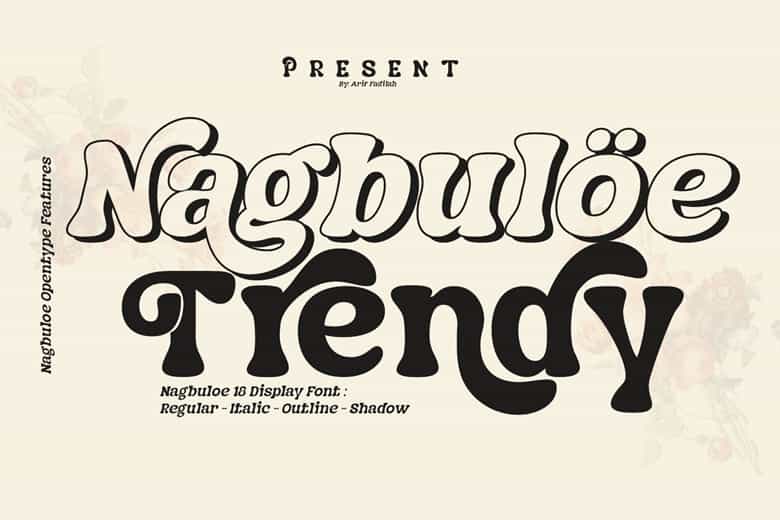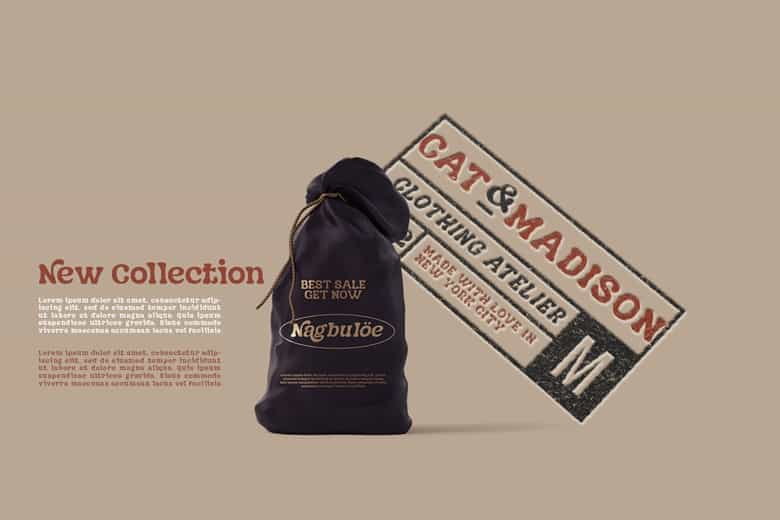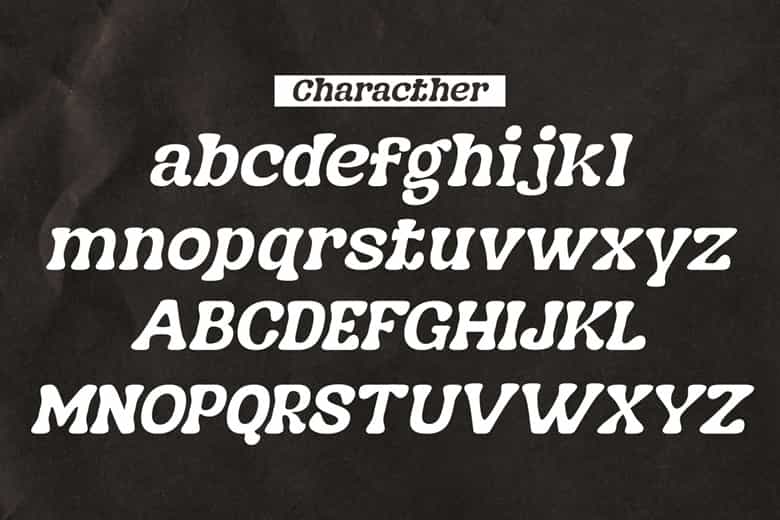
Nagbuloe has a sophisticated display font design. It provides stunning typographic balance and is suitable in a range of design work such as logos and branding systems, social media, headlines, etc.